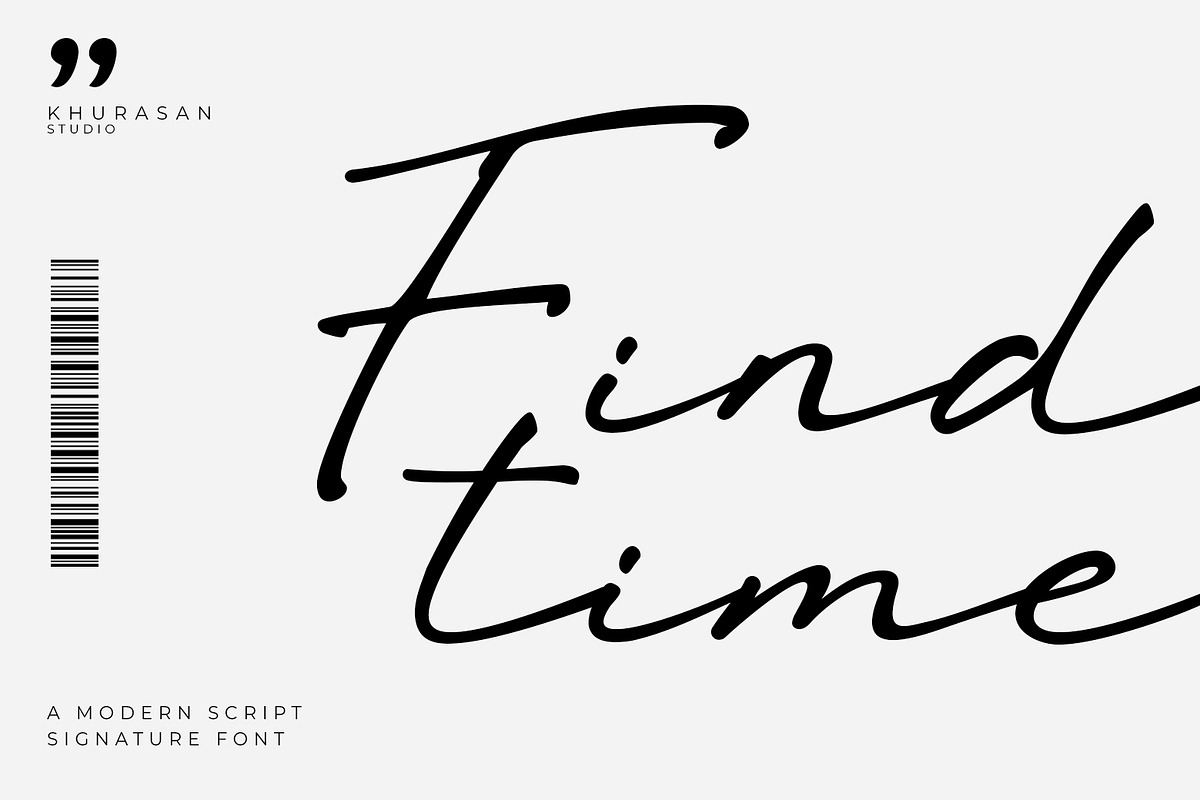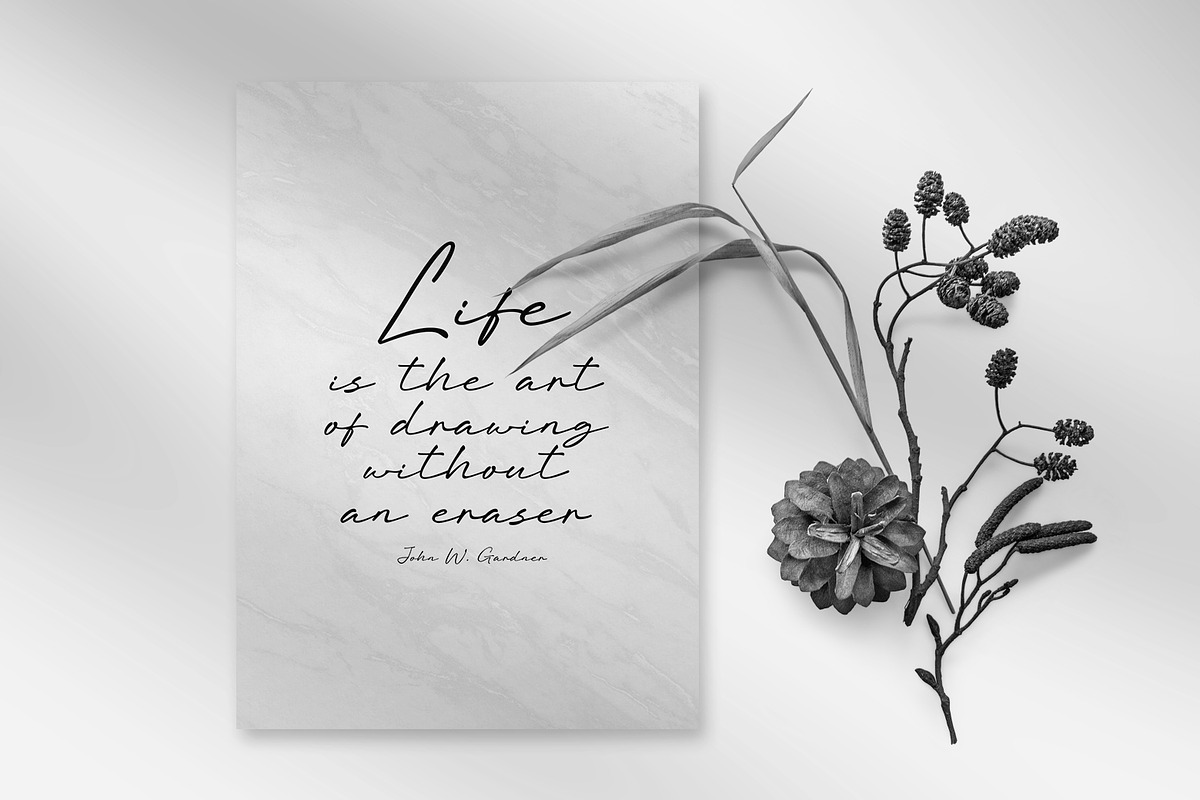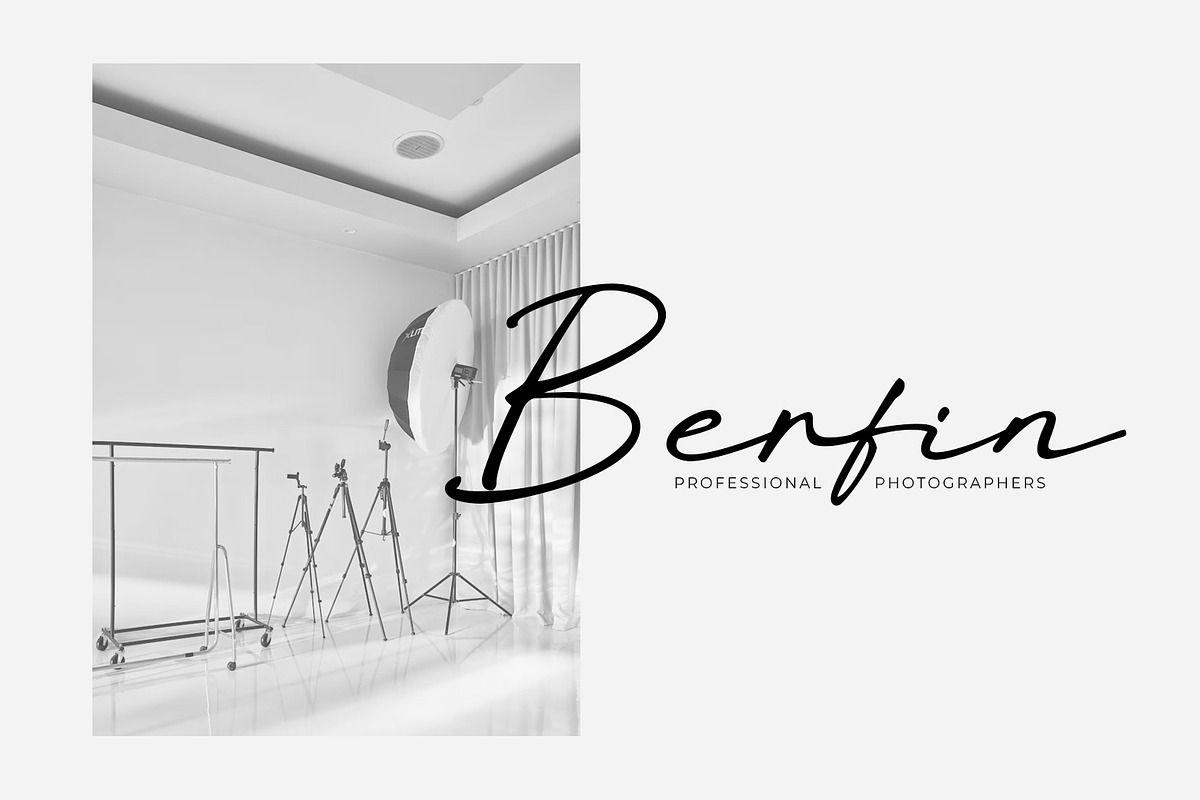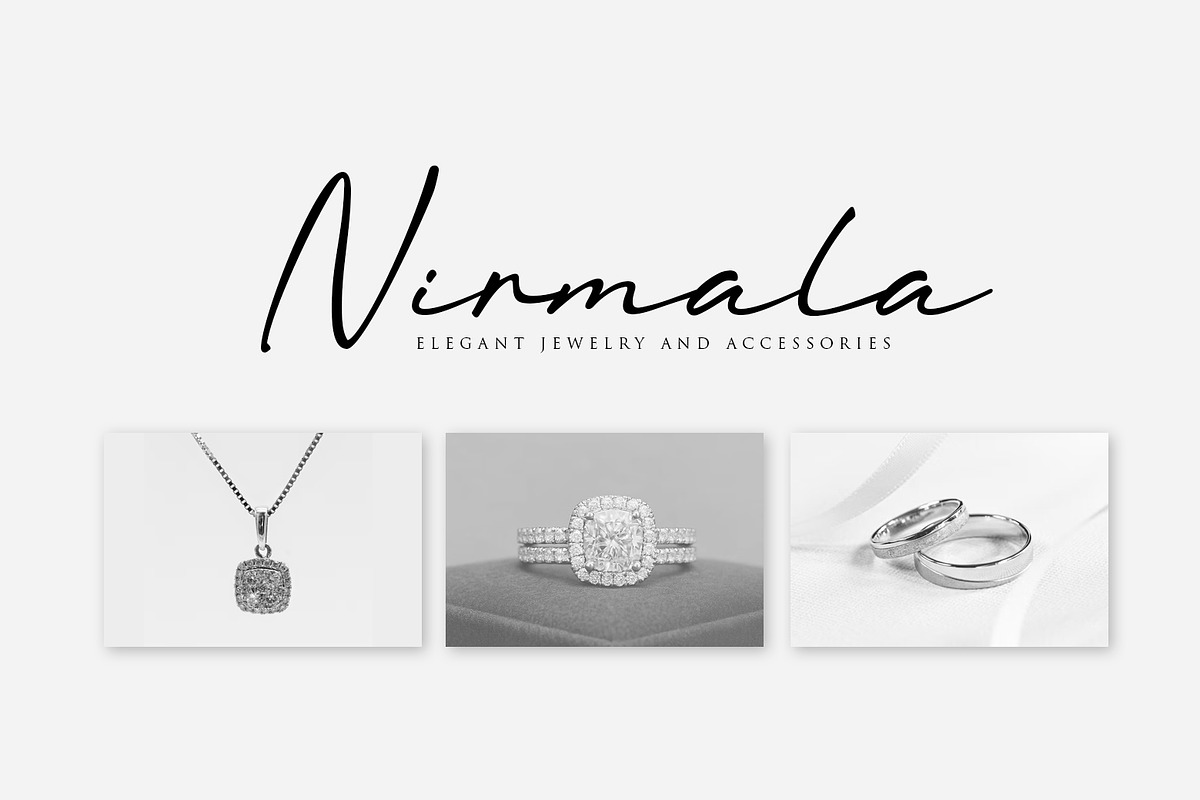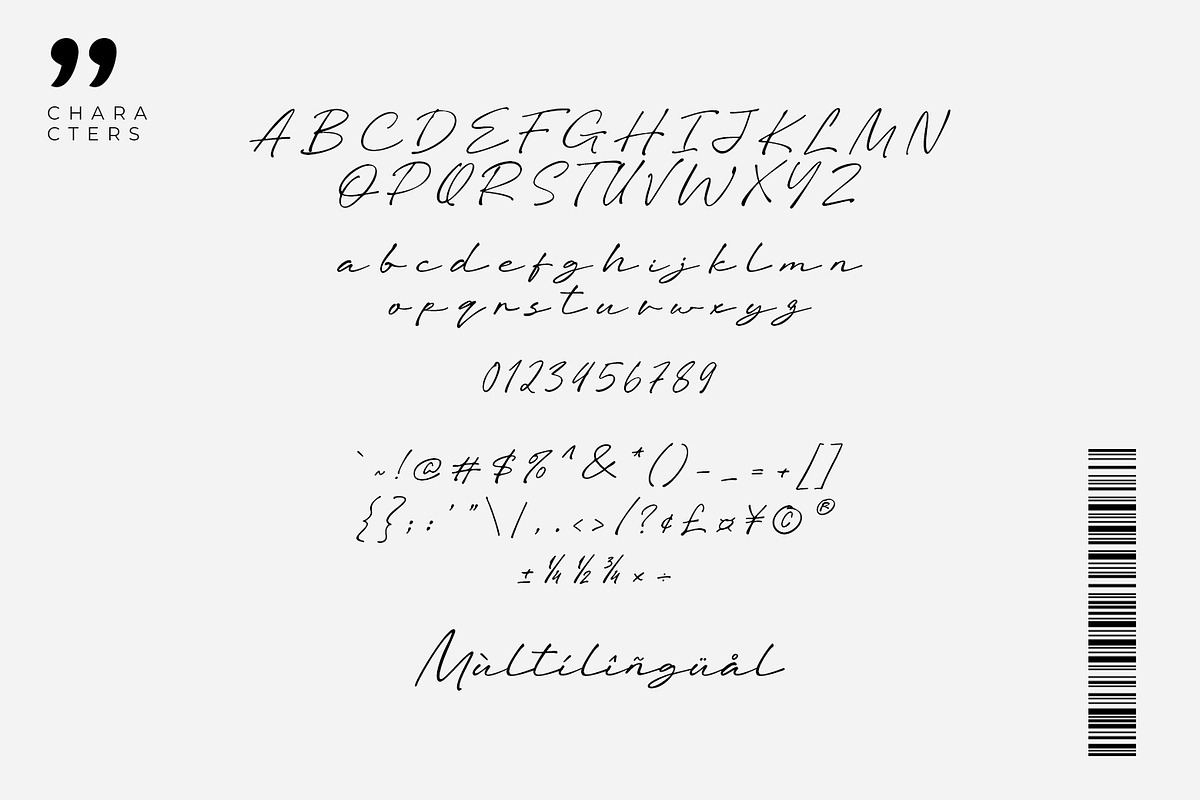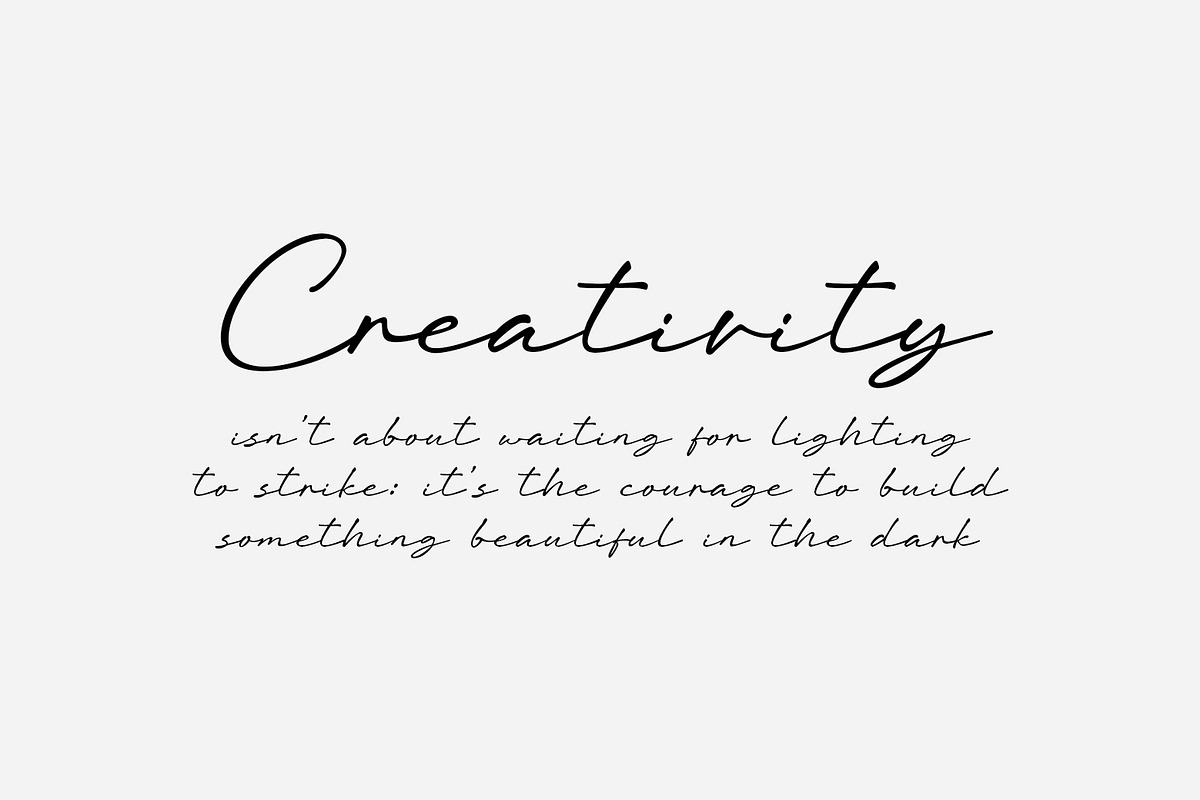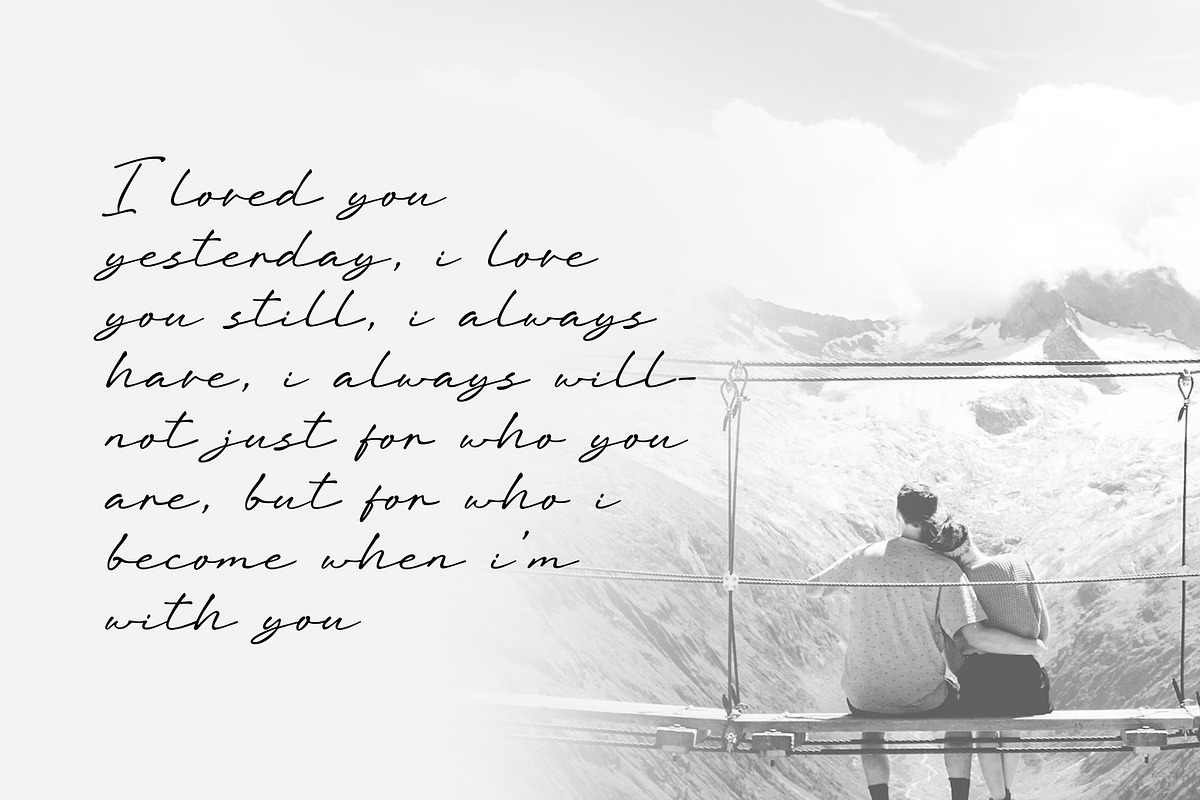
Findtime - A Modern Script
Findtime is a script signature font, designed to capture the beauty of real hand-lettering. Every stroke feels alive — smooth, expressive, and full of personality. It delivers an authentic handwritten charm that makes your designs feel warm, stylish, and premium.
Perfect for logos, branding, product packaging, quotes, social media posts, wedding designs, and creative projects, Findtime adds a personal and artistic touch that instantly stands out.
Standart Glyphs
Numberial and Functional